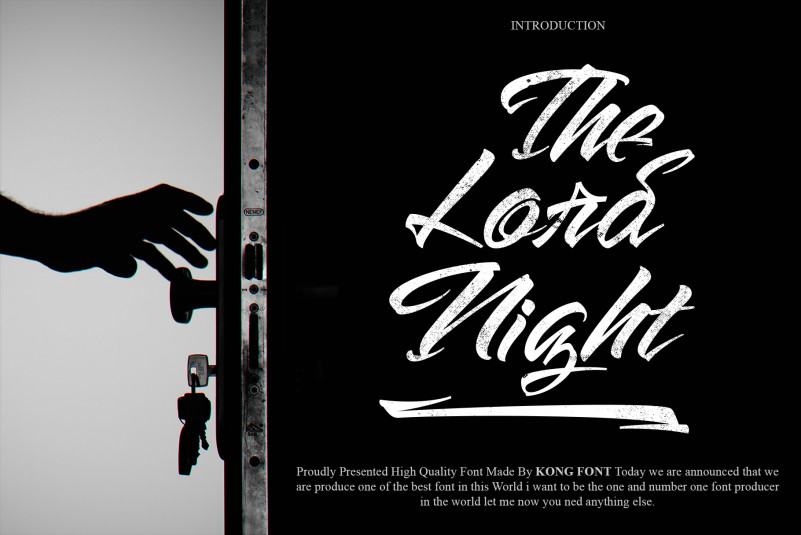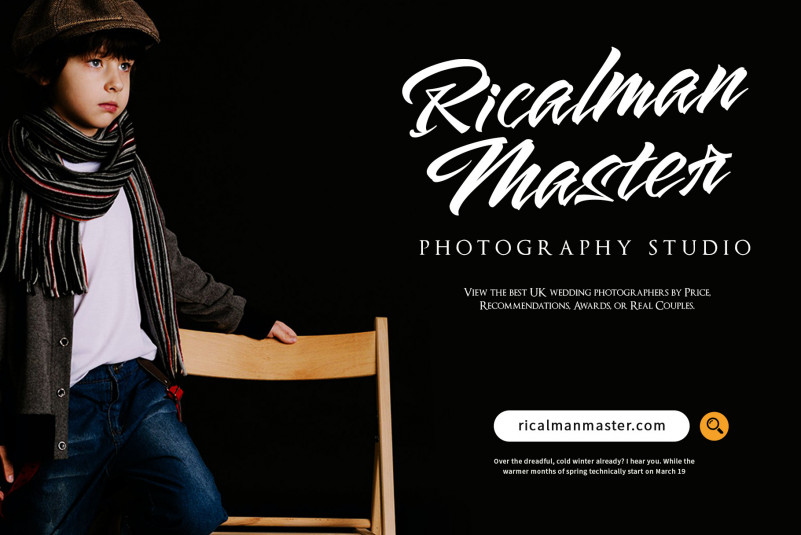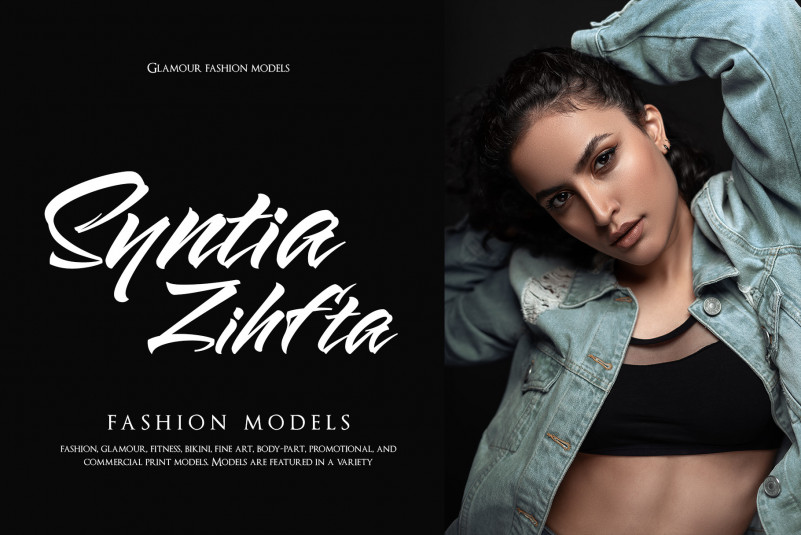
The Lord Night Brush Font
Introducing our New Font, very suitable as to make adorable invitation for wedding, birthday, special day. A collection of letters and numbers suitable your projects also great for Logotype, Branding Design, Logo Design, Digital Lettering Arts, T-Shirt/Apparel, Poster, Magazine, Signs, Advertising Design, and also perfect for your other projects branding.